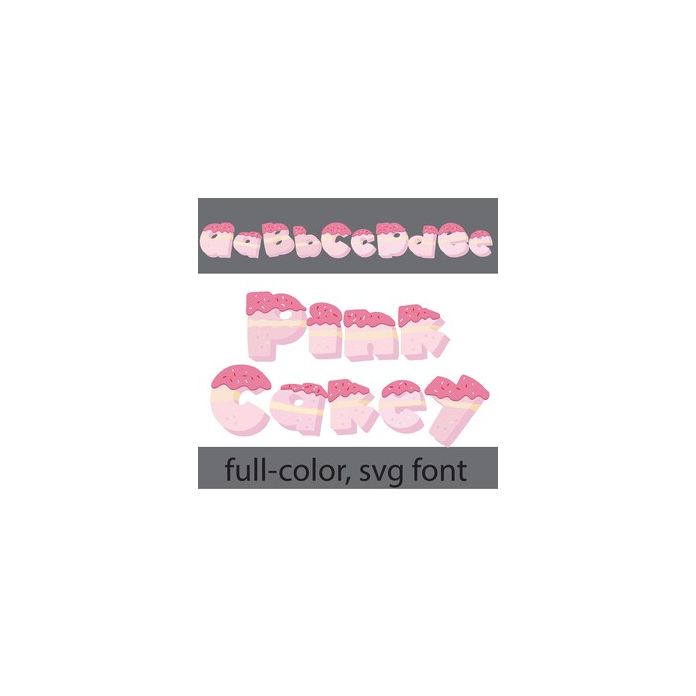
This full-color font features layered cake that looks like 3d lettering. There is an alt case w/ additional colors you can access through your system or Silhouette's glyph map.